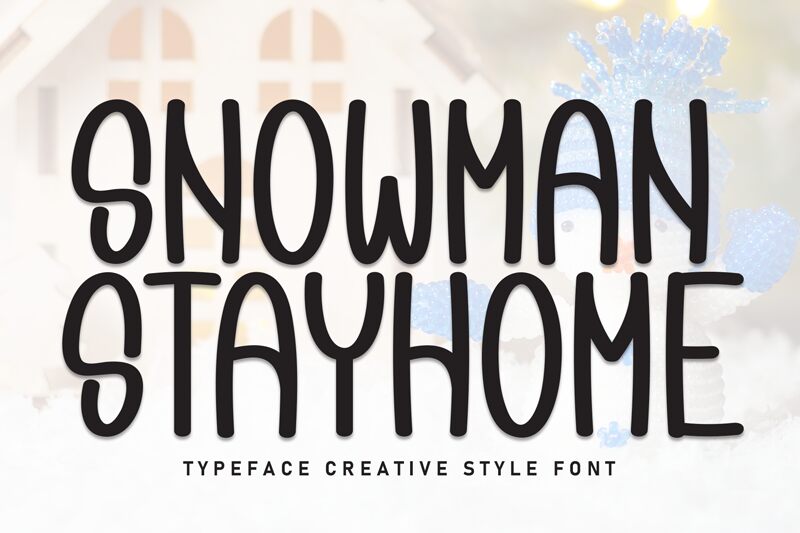
Snowman Stayhome
Snowman Stayhome font by Scratchones is a brush font that has all the qualities needed for a creative project that calls for an artistic touch. Combined with its geometric features, condensed width, and decorative style, this font can also match modern projects with its contemporary appeal and casual ambiance.